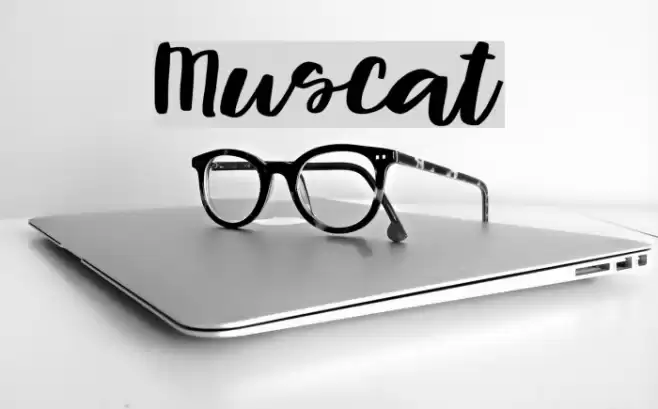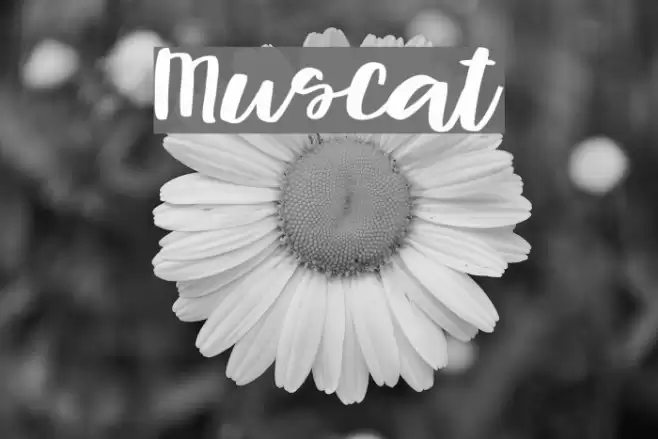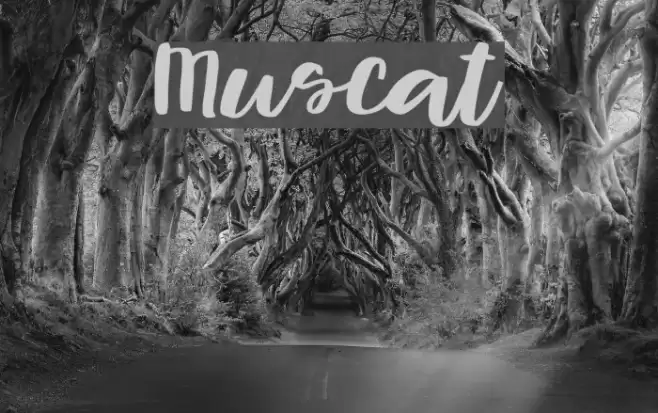
Muscat Font
Muscat Description
This font features a bold, handwritten style with a playful and energetic appearance. The letters have a smooth, flowing quality, characterized by thick strokes and rounded edges. The uppercase and lowercase letters maintain a consistent style, with slight variations in the curves and loops that add a touch of uniqueness to each character. The font's design is both modern and approachable, making it suitable for a variety of creative projects. Its boldness ensures high visibility, while the handwritten aspect adds a personal touch.
A bold, handwritten font with smooth, flowing strokes and a playful style from Uncategorized fonts.
- Proposed Projects: Ideal for greeting cards, invitations, social media graphics, and branding materials that require a personal and friendly touch.
- Use Case: Logos, Headlines, Invitations